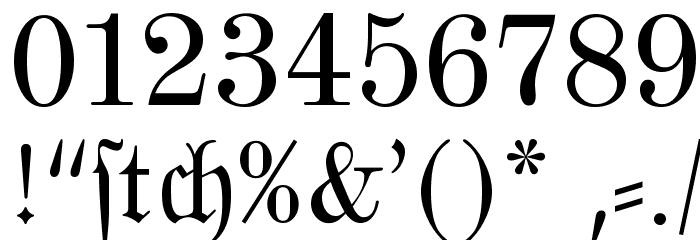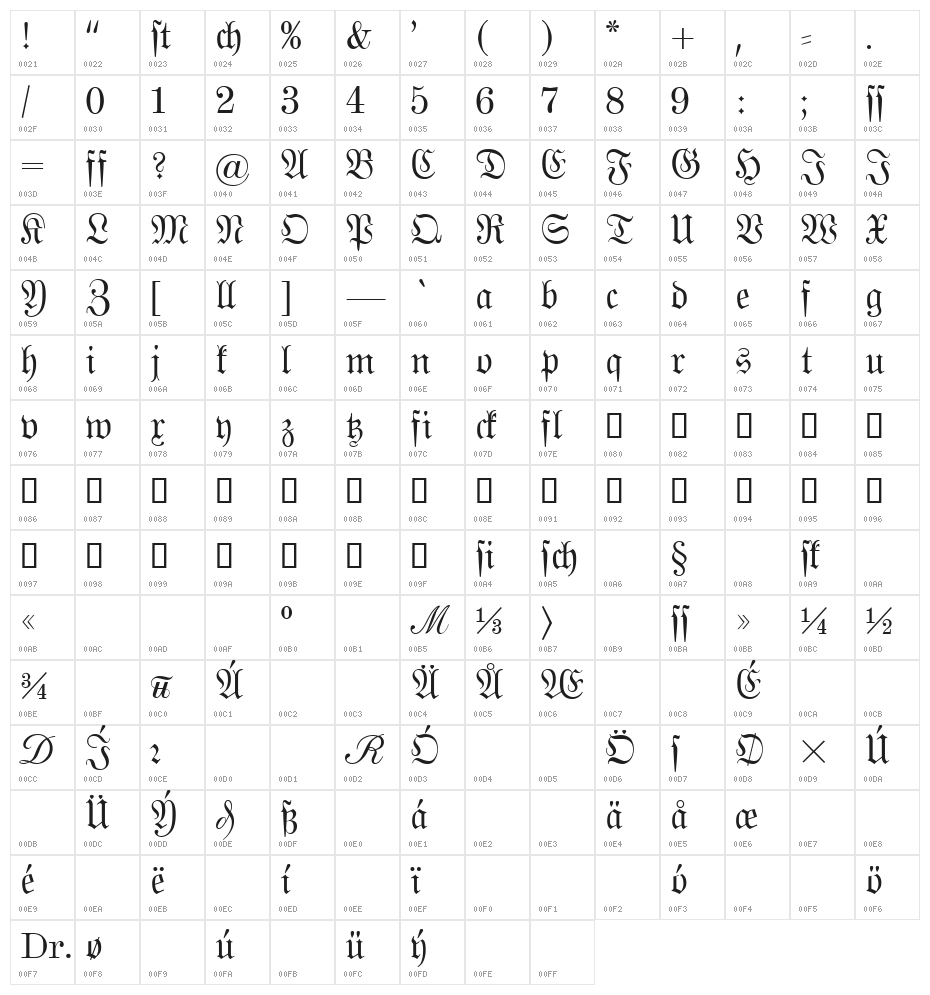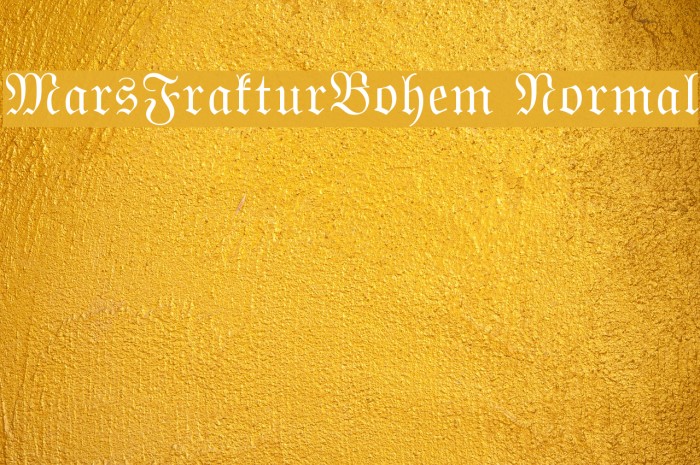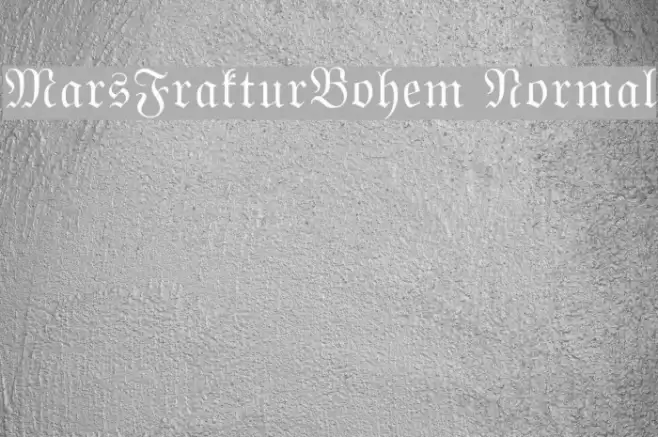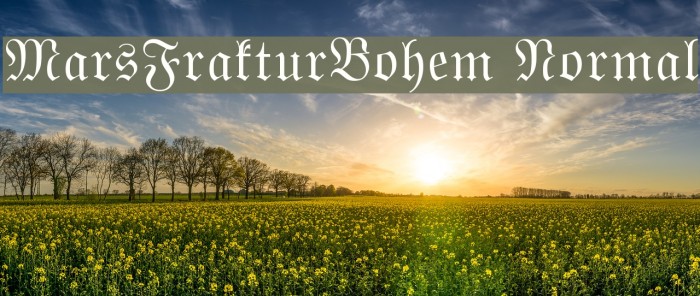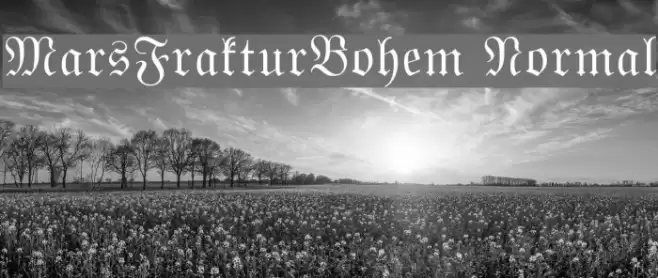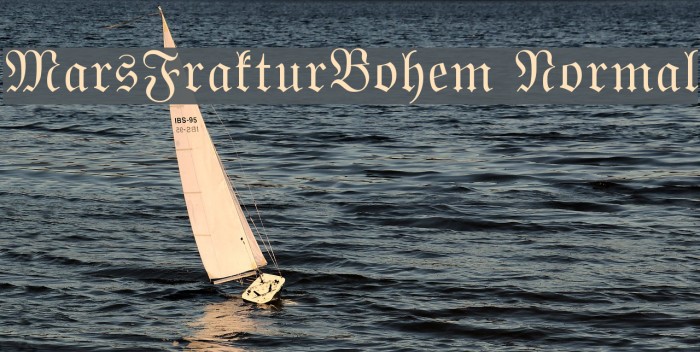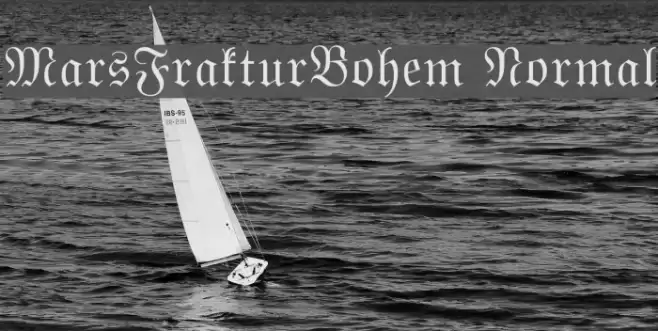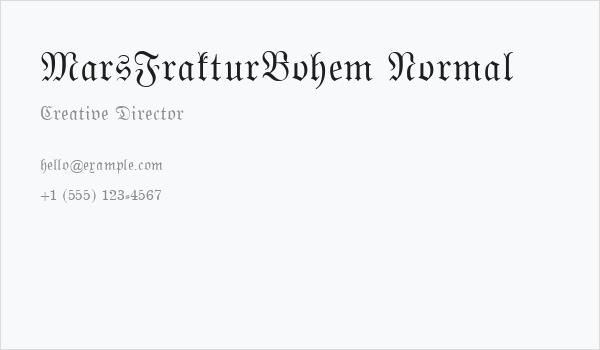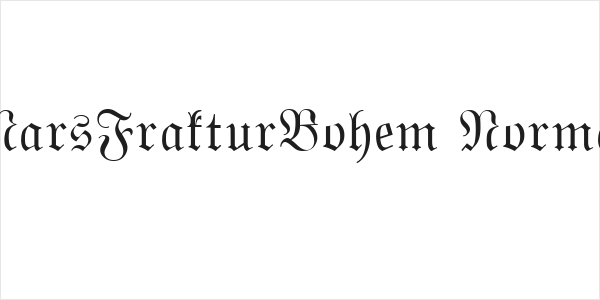
MarsFrakturBohem Normal Font
MarsFrakturBohem Normal Description
This font embodies the traditional elegance and intricate detailing of blackletter typefaces. Each character is crafted with sharp, angular lines and ornate flourishes, reminiscent of medieval script. The uppercase letters are particularly elaborate, featuring dramatic curves and pointed serifs that enhance their gothic appeal. The lowercase letters maintain a consistent style, with a slightly more subdued design that complements the uppercase set. Numerals are bold and distinct, ensuring readability while maintaining the overall aesthetic. Special characters are thoughtfully integrated, with unique designs that align with the font's historical inspiration. This font is perfect for projects that require a touch of classic sophistication and a nod to historical typography.
| Use Case | Headlines, Logos, Decorative text |
| Proposed Projects | Ideal for historical documents, wedding invitations, book covers, and branding that requires a classic or medieval touch. |